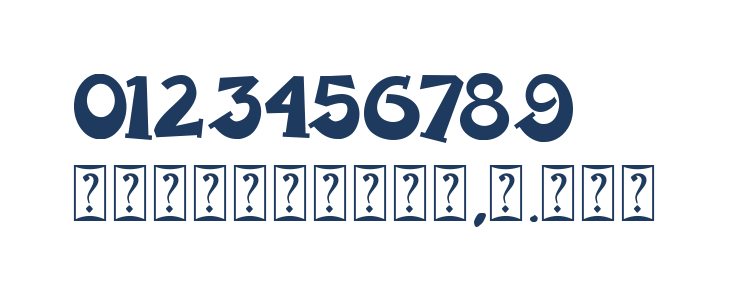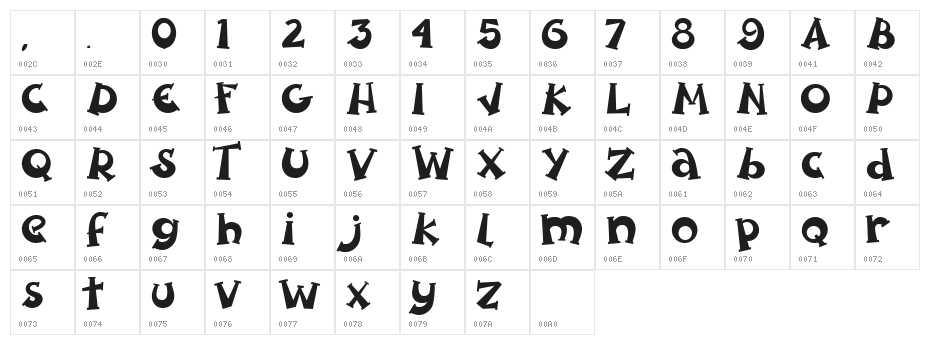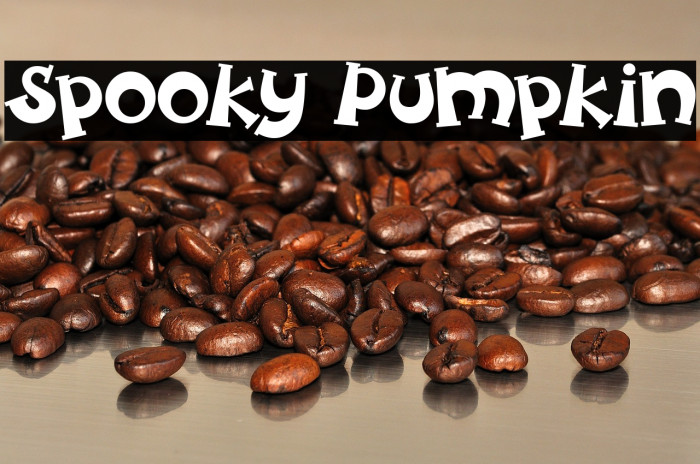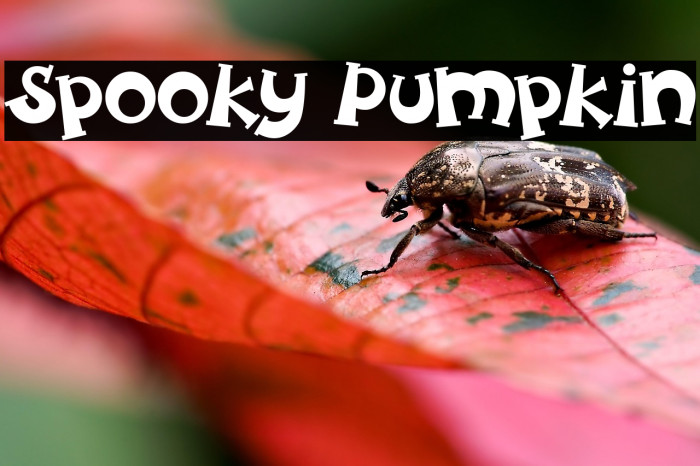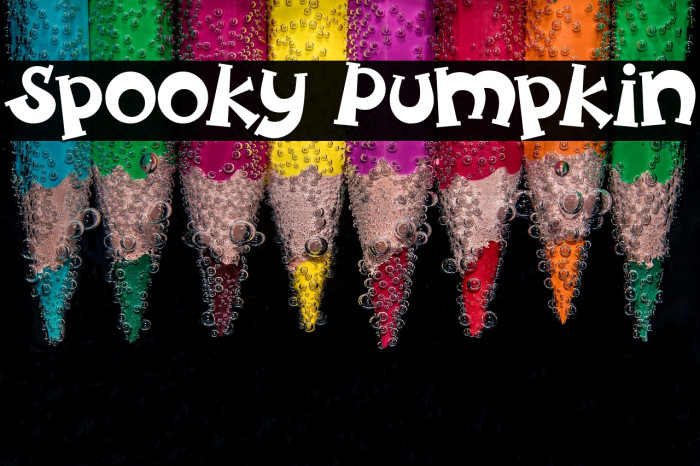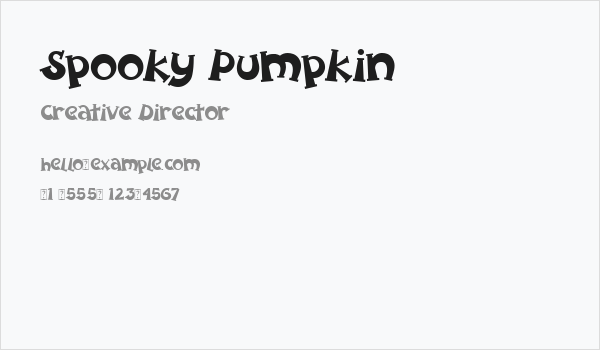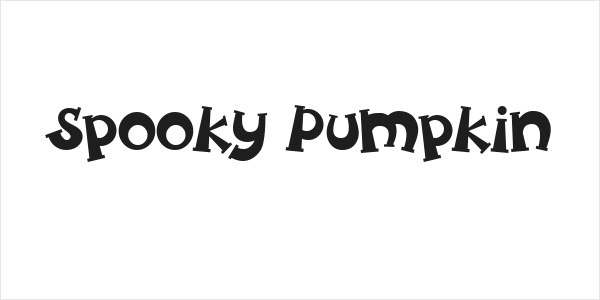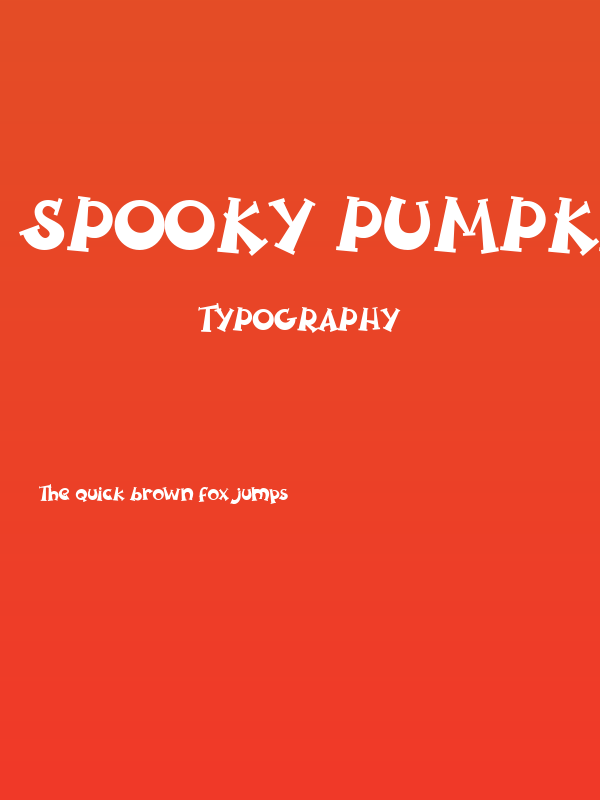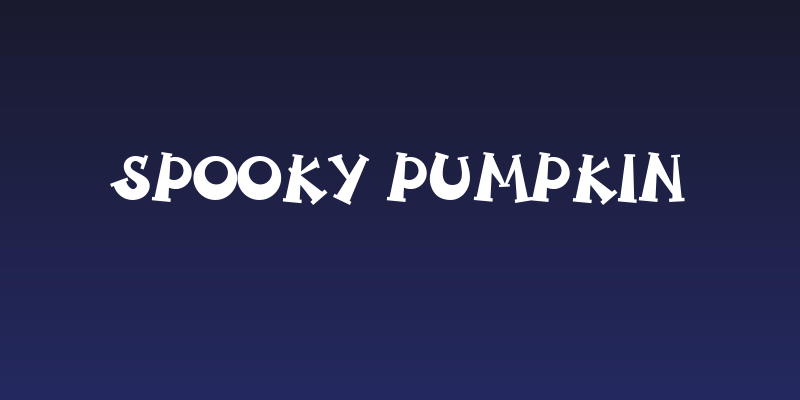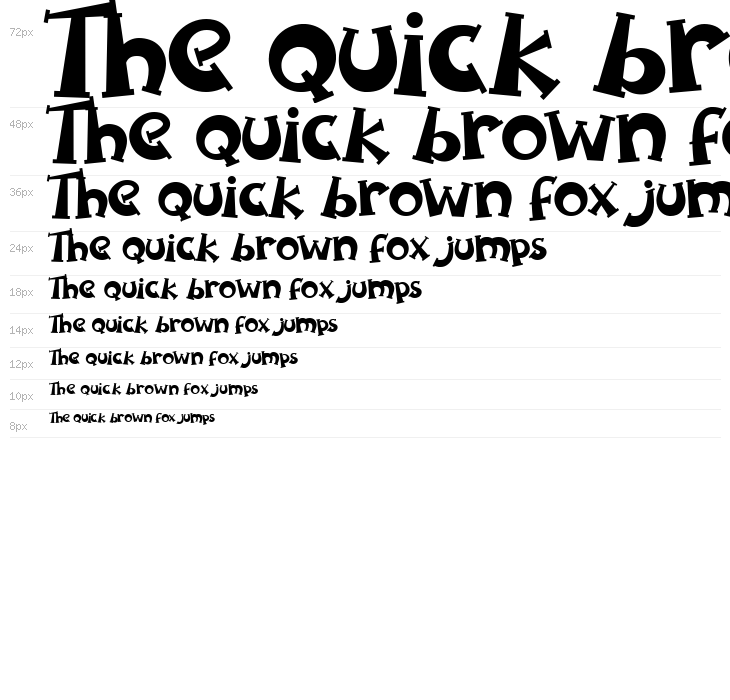
Spooky Pumpkin Font
Spooky Pumpkin Description
This font features a playful and whimsical design, characterized by its uneven and quirky letterforms. Each character has a unique, slightly distorted appearance that gives it a fun and spooky vibe, perfect for Halloween-themed projects. The bold strokes and irregular shapes create a sense of movement and energy, making it stand out in any design. The font maintains a consistent weight throughout, with medium contrast in stroke thickness. Its decorative style is ideal for capturing attention and adding a touch of personality to your work.
| Proposed Projects | Ideal for Halloween invitations, themed posters, children's book covers, and playful branding. |